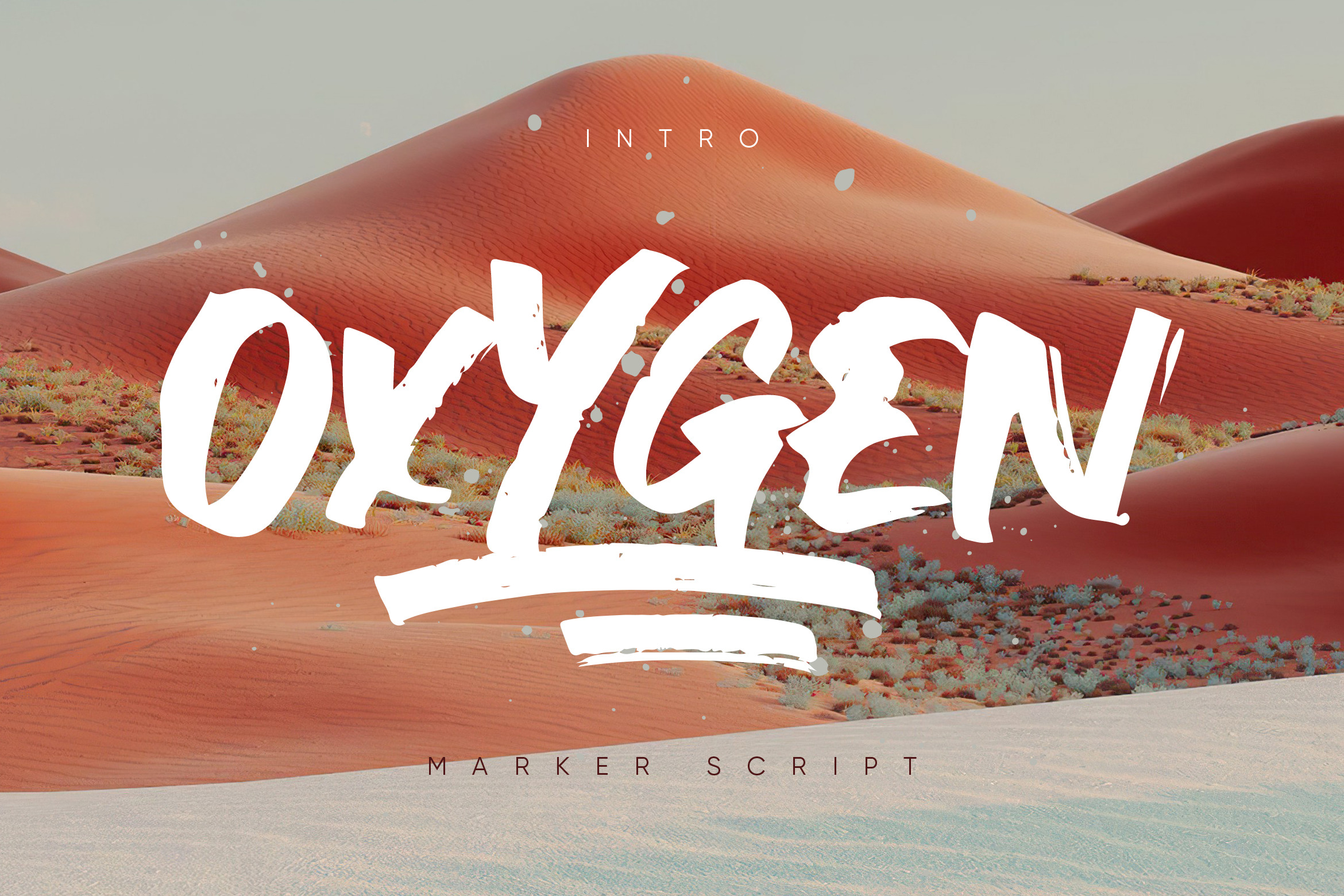
Oxygen Script Font + Extentions
Oxygen Script made with a transparent line texture. Suitable for use in title design such as invitations, signboards, book titles, stationery designs, quotes, branding, logos, greeting cards, packaging designs, posters, and more.
- Punctuation & numbers
- Splashes
- Splatters
- Alternate letters
- Uppercase letters
- Multi Language
Supported Languages - French, Spanish, English, Catalan, Galician, Basque, Portuguese, Italian, Albanian, Afrikaans, Dutch, German, Danish, Swedish, Norwegian, Finnish, Faroese, Icelandic, Irish and Scottish.